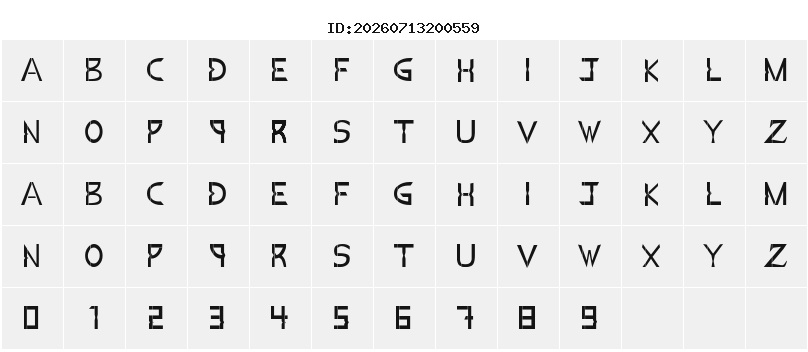
• Font Name: Lord ZeDD Release - LJ Studios
• Full Font Name: Capella Century
• Designer: Luis Jaramillo
• Description: Lord Zedd Dit lettertype is ontworpen door LJ-Design
Lord ZeDD Release - LJ Studios.ttf is a modern, elegant sans-serif font designed for ultimate readability and visual harmony. Perfect for branding, headlines, web design, and print materials.